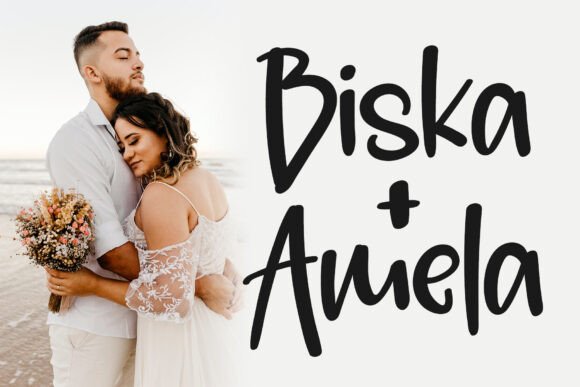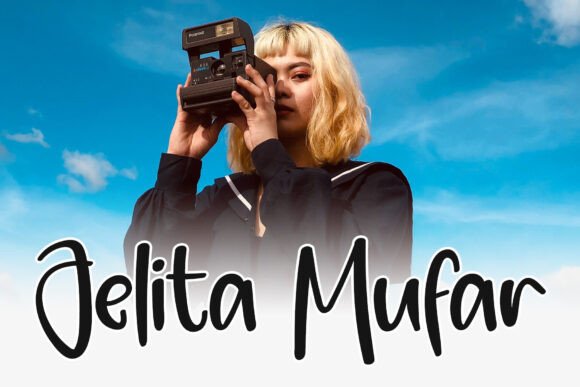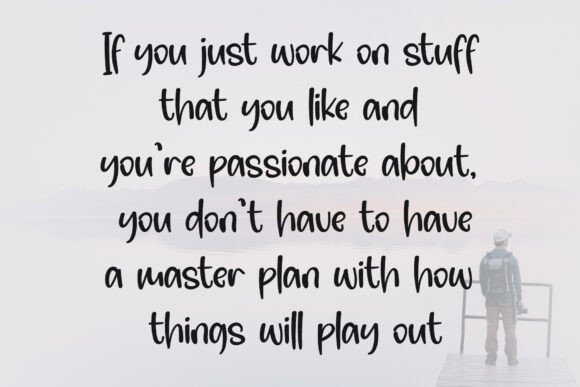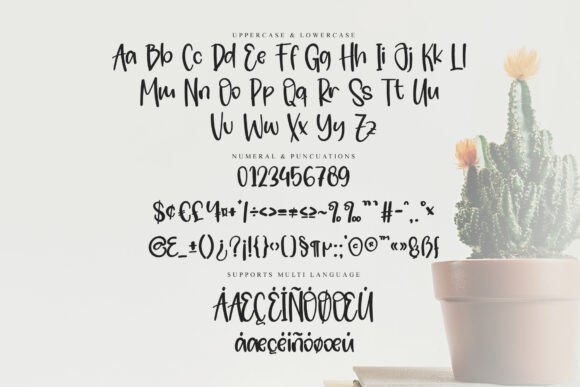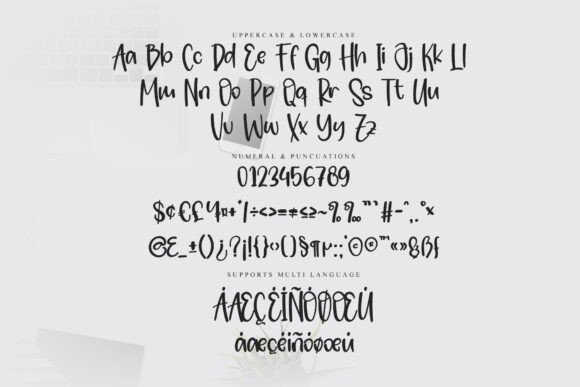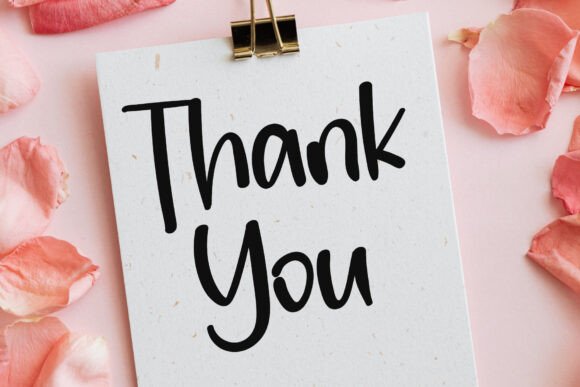
Unleash Your Creativity with the Perfect Script Font
Remember that moment when you first envisioned your dream logo, wedding invitation, or packaging design? The excitement and anticipation of bringing your creative vision to life are palpable. But, have you ever struggled to find the perfect font that captures the essence of your idea? That’s where the Blister Signature Font comes in – a beautifully crafted handwritten script font that exudes elegance and charm.
| 👤 Author | 21Design |
Designed to elevate your designs, the Blister Signature Font is perfect for branding, invitations, logos, and any creative project that requires a touch of sophistication. With its fluid, natural strokes, this font adds a personal and refined touch to your work, making it an ideal choice for designers who want to leave a lasting impression.
Whether you’re a seasoned designer or just starting out, the Blister Signature Font is a valuable addition to your toolkit, offering versatility and endless possibilities for creative expression.
Blister Signature Font Key Features
- Font Type: Script Font
- Unique Characteristics: Handwritten, cursive, and signature-style font with a modern touch
- Style Options: Includes 6 font styles: Regular, Bold, Italic, Bold Italic, Swash, and Swash Bold
Blister Signature Font Review
First impressions are everything, and Blister Signature Font does not disappoint. The font’s unique blend of modern and vintage elements makes it perfect for adding a touch of sophistication to any design project. I love the way the font’s signature curves and flourishes add a sense of elegance and refinement. ✨
- Wide range of font weights and styles
- Highly customizable, making it perfect for branding and marketing materials
- Excellent for use in digital and print projects
- Great for creating eye-catching headlines and titles
However, I do have a few minor complaints. The font’s complexity can sometimes make it difficult to read, particularly at smaller font sizes. Additionally, some of the more elaborate flourishes can feel a bit over-the-top, making the design feel cluttered. ⚠️
Overall, I’m really impressed with Blister Signature Font. While it may not be perfect, its unique style and customization options make it a valuable addition to any designer’s toolkit. With a bit of finesse, I think this font has the potential to elevate even the most mundane designs to new heights.
The Blister Signature Font is ideal for:
- Creatives and designers looking for a unique typography style.
- Brands seeking to establish a distinctive visual identity.
- Individuals who want to add a personal touch to their designs.
Alternatives to Blister Signature Font
Great Vibes is a modern script font perfect for creating a friendly and approachable atmosphere. It’s ideal for use in logos, branding materials, and social media graphics. Great Vibes is more versatile than Blister Signature Font, as it comes in multiple weights and styles.
Comparison: Great Vibes is more formal and elegant than Blister Signature Font, making it suitable for a wider range of applications.
Carolyna Pro is a luxurious script font designed for high-end branding and advertising. It’s perfect for use in premium packaging, invitations, and luxury goods. Carolyna Pro is more refined and sophisticated than Blister Signature Font, making it ideal for luxury brands.
Comparison: Carolyna Pro is more ornate and detailed than Blister Signature Font, making it better suited for high-end applications.
Amatic SC
Amatic SC is a fun and playful sans-serif font perfect for use in casual branding, social media graphics, and advertising. It’s ideal for creating a laid-back and approachable atmosphere. Amatic SC is more informal than Blister Signature Font, making it suitable for younger audiences.